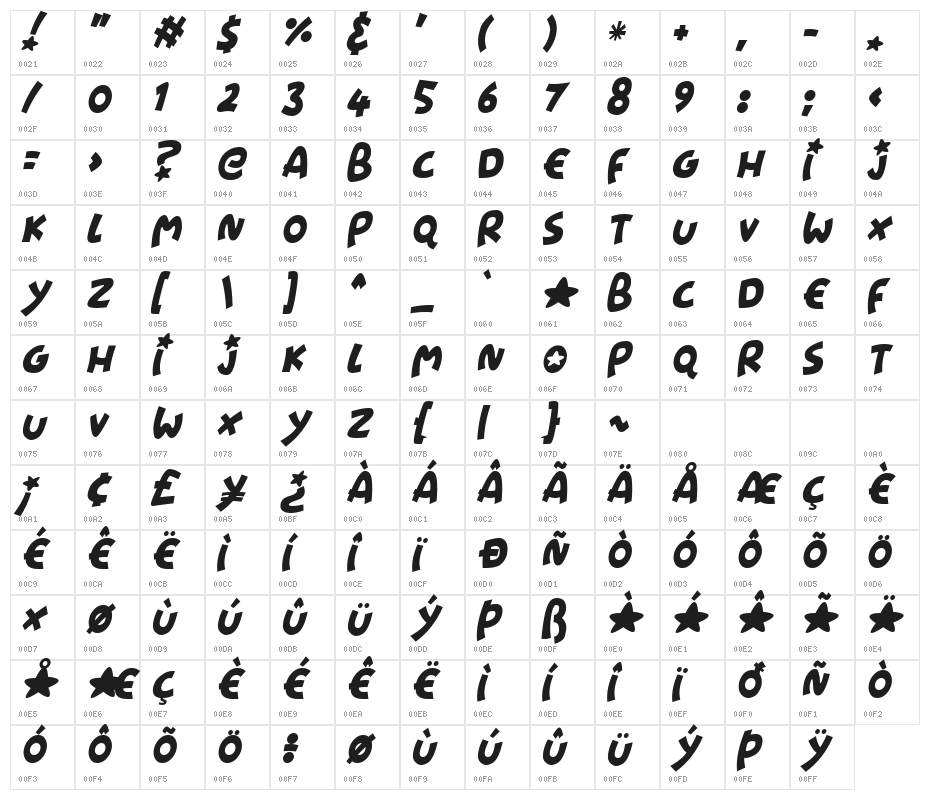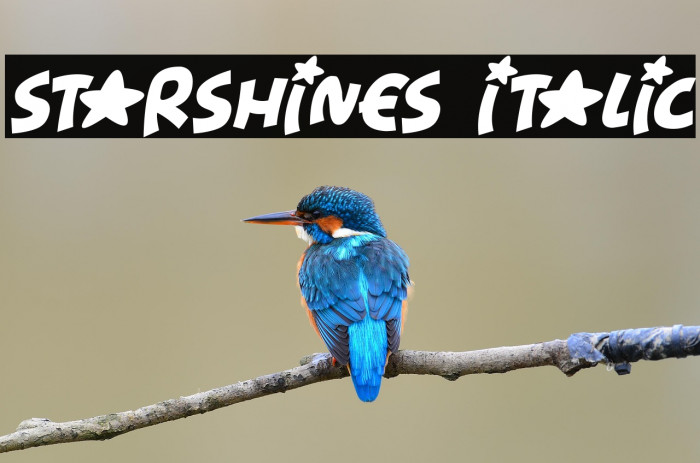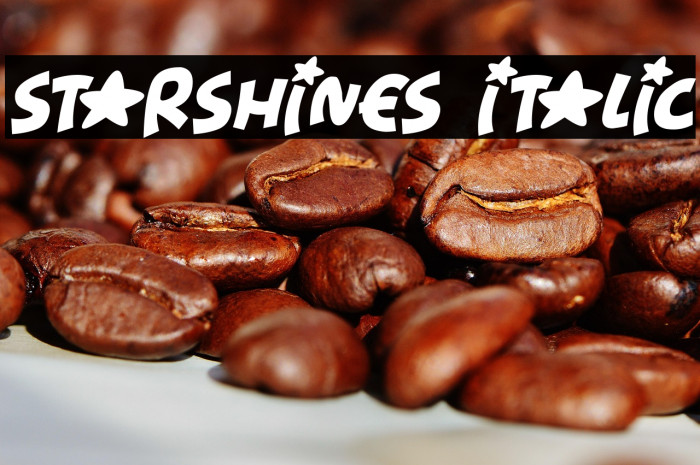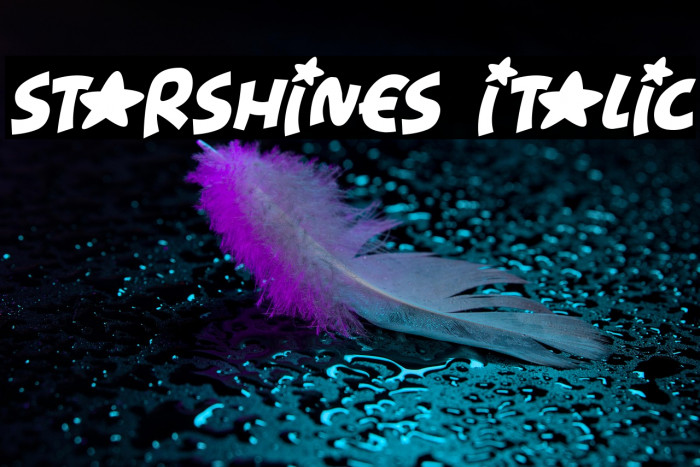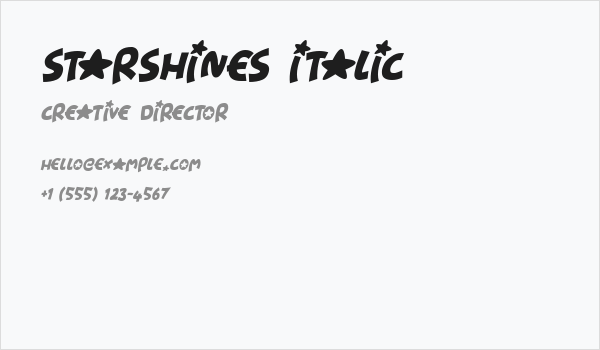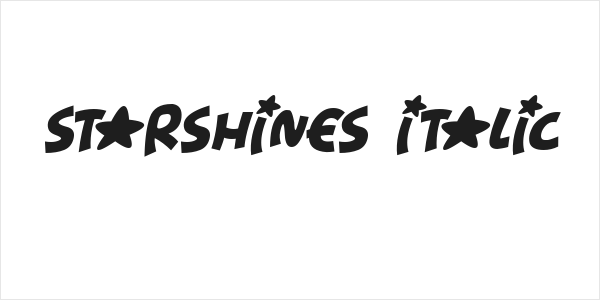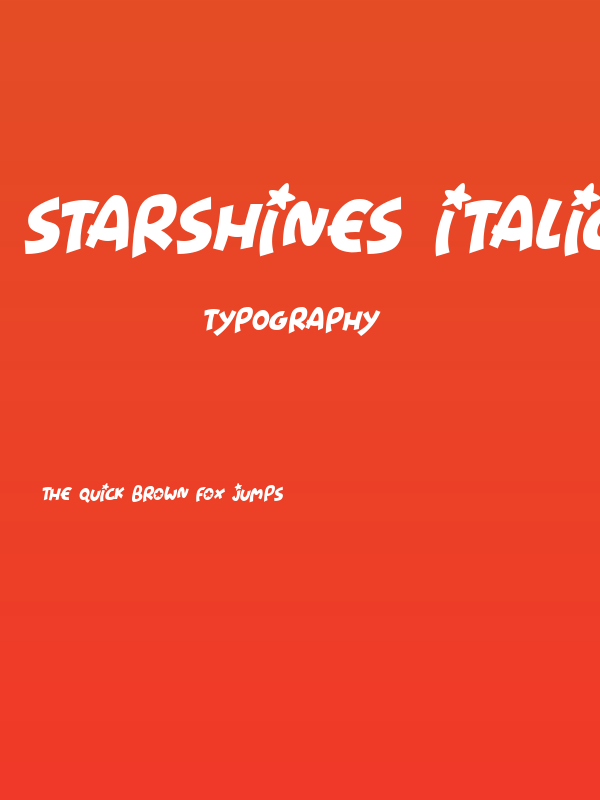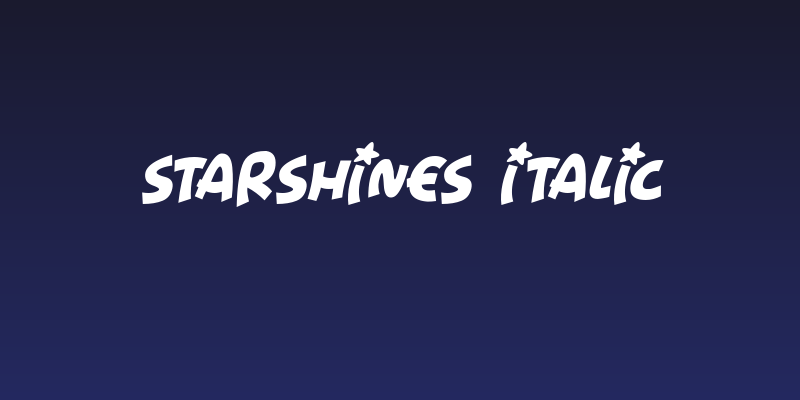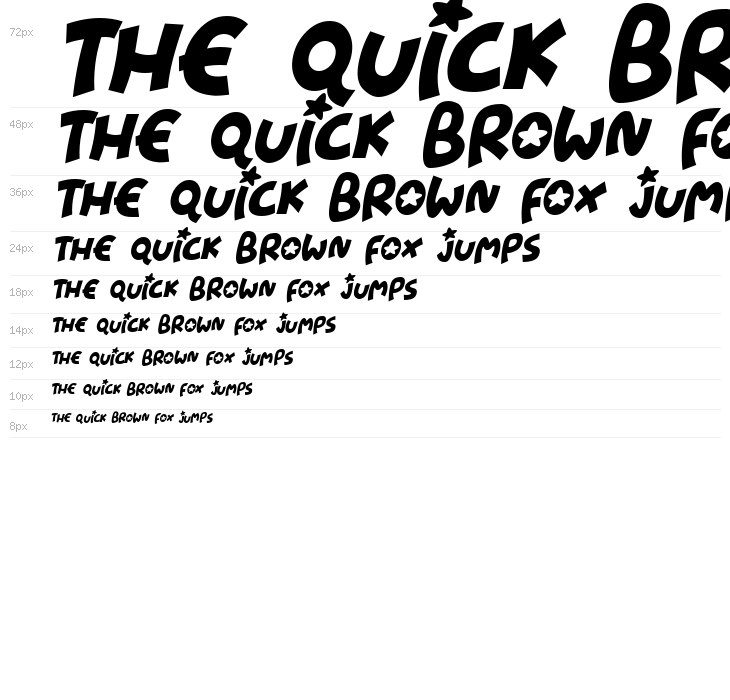
Starshines Italic Font
Starshines Italic Description
This font features a playful and whimsical design, characterized by its bold and rounded letterforms. The letters are slightly italicized, adding a dynamic and energetic feel. Unique star-shaped elements are integrated into certain characters, enhancing its decorative appeal. The font maintains a consistent stroke width, contributing to its bold appearance. Its informal style makes it suitable for creative and fun projects. The characters are well-spaced, ensuring readability while maintaining a lively aesthetic.
| Proposed Projects | Ideal for children's books, party invitations, playful branding, and creative posters. |